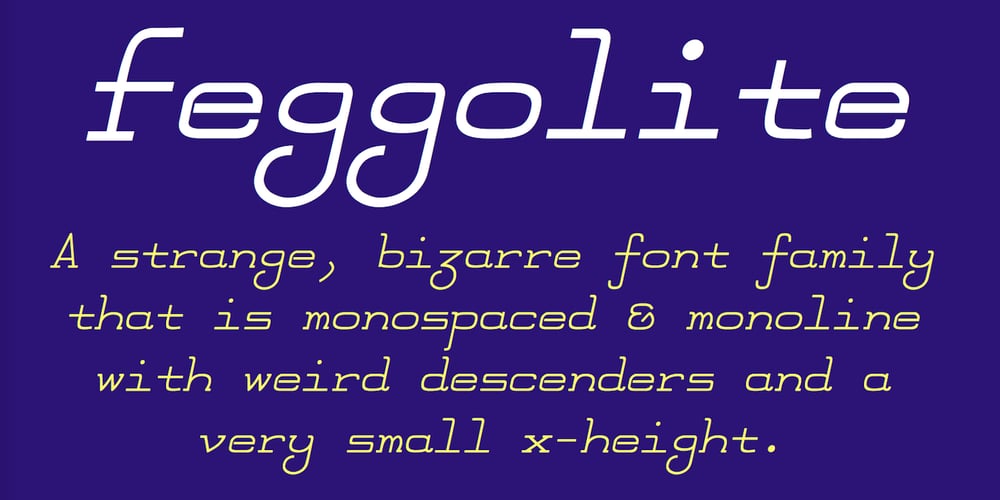
FeggoliteMono Font Family was designed by Robert Schenk and published by Ingrimayne Type. FeggoliteMono contains 6 styles and family package options. FeggoliteMono is a decorative, monospaced typeface family with a small x-height and long descenders. Two styles (plain and bold but renamed in 2020 as light and regular) were created in 1994 and revised in 2010. In 2020 a bolder bold was added along with italics versions for each of the three weights.The design was an attempt to create a decorative typewriter font.